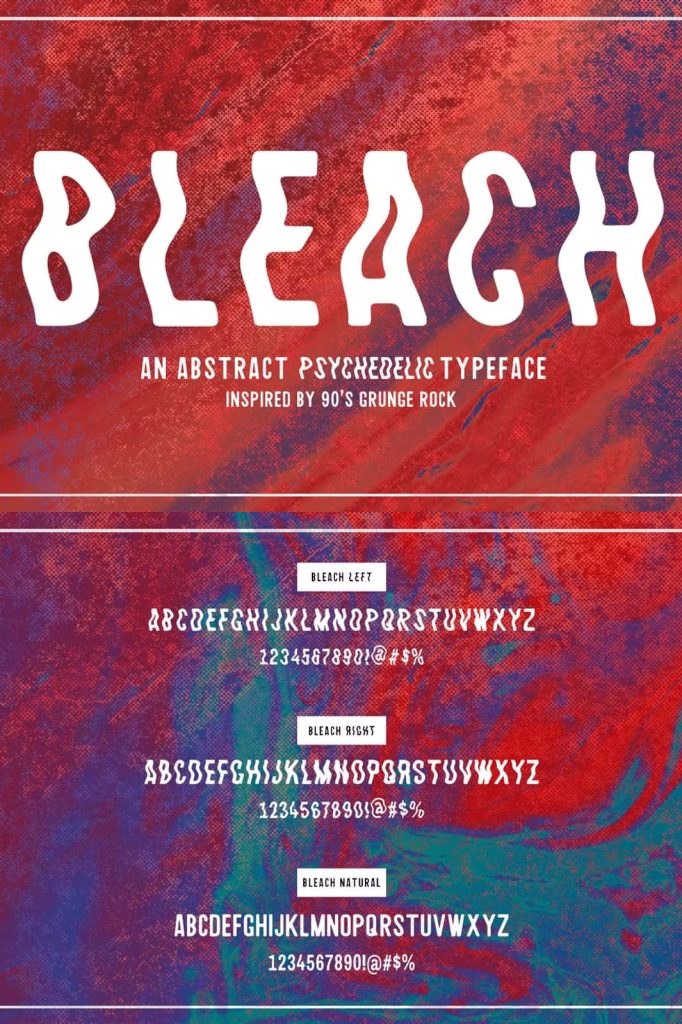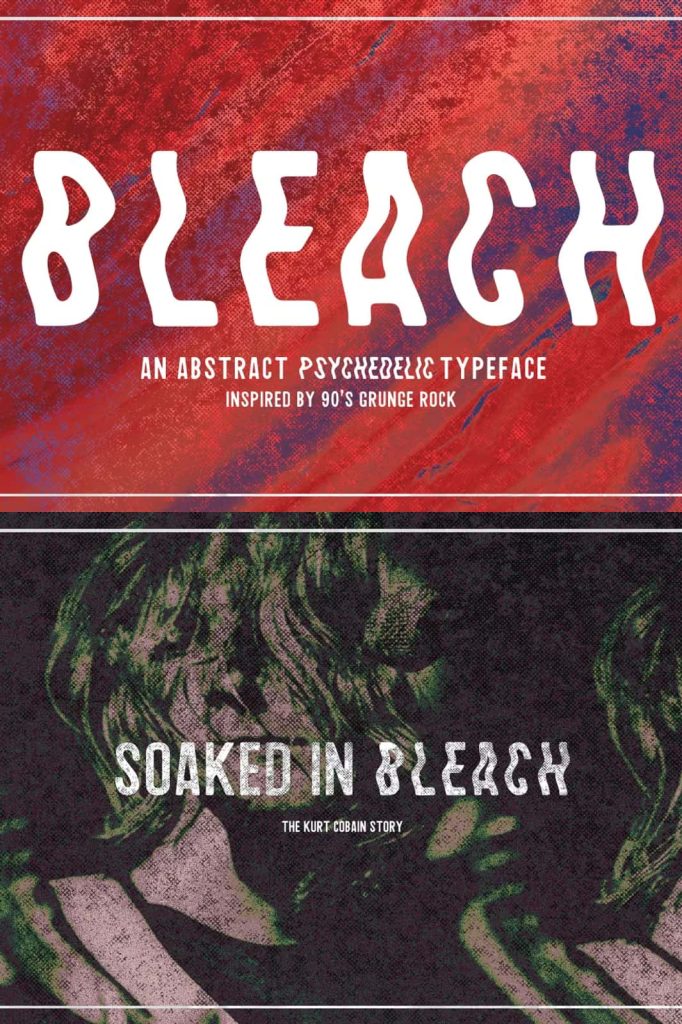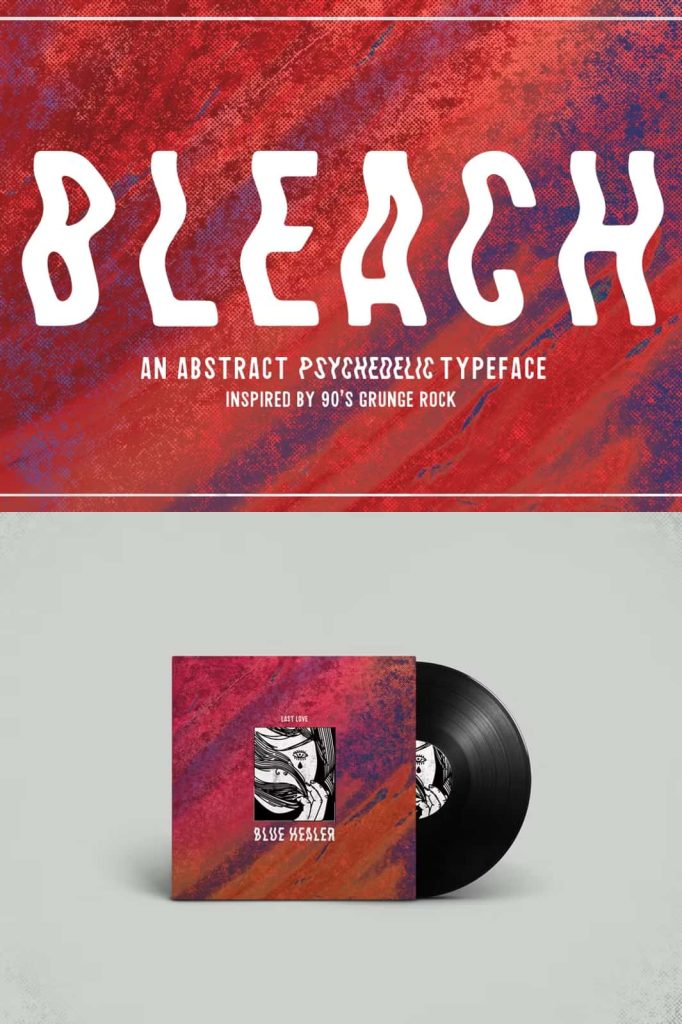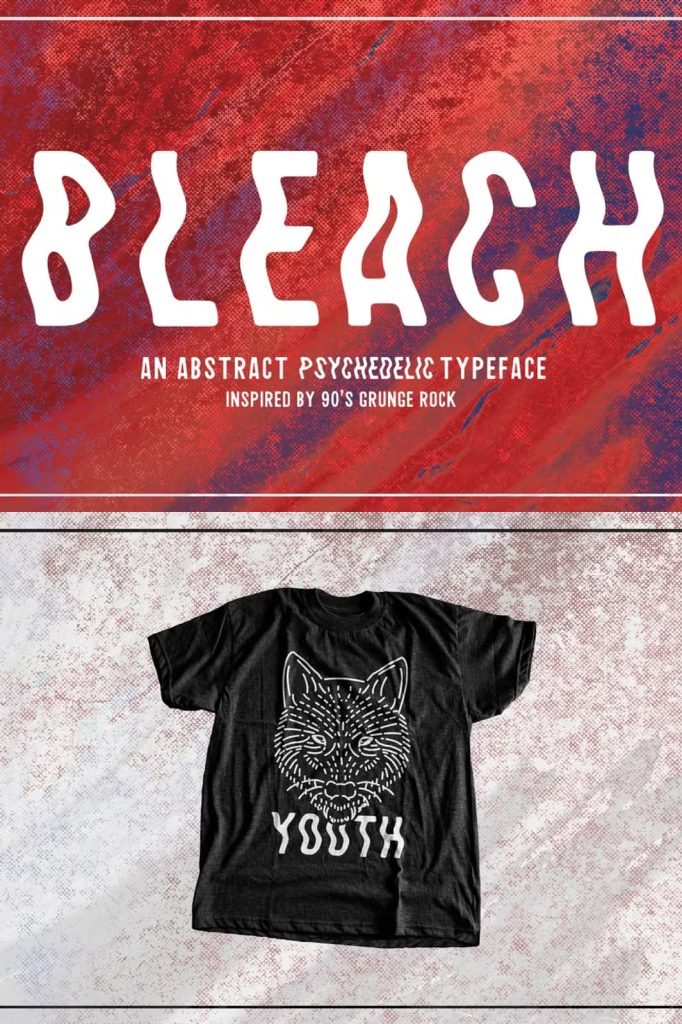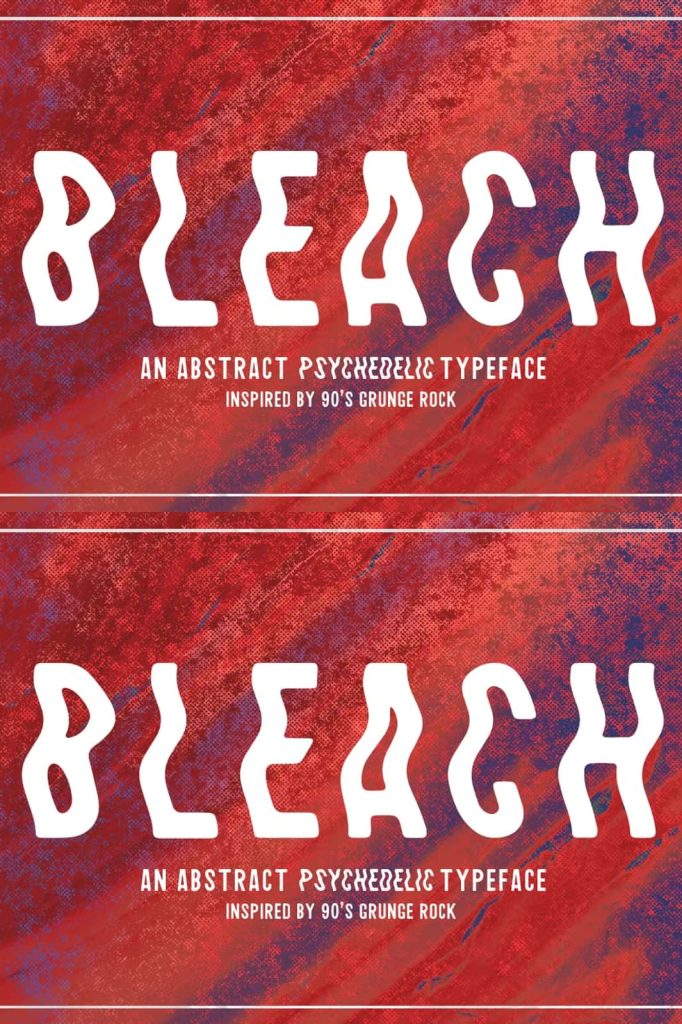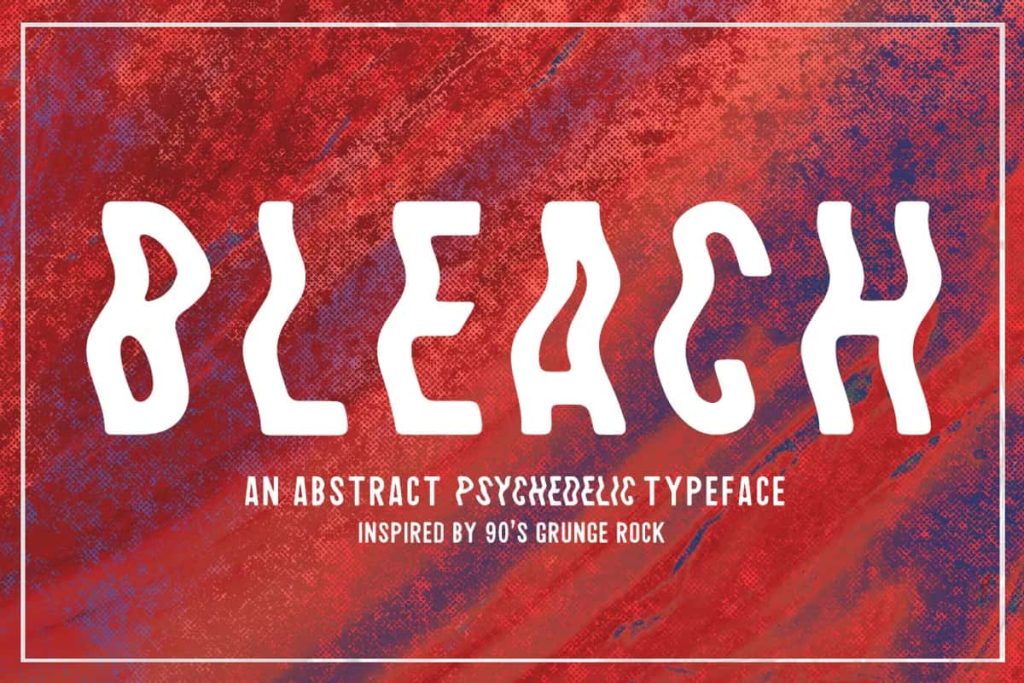
Bleach / Sans-Serif TypefaceleastedJune 8, 2024Fonts This is Bleach. An all caps sans-serif font that smells of PBR and dive bars, inspired by 90’s grunge rock. Download